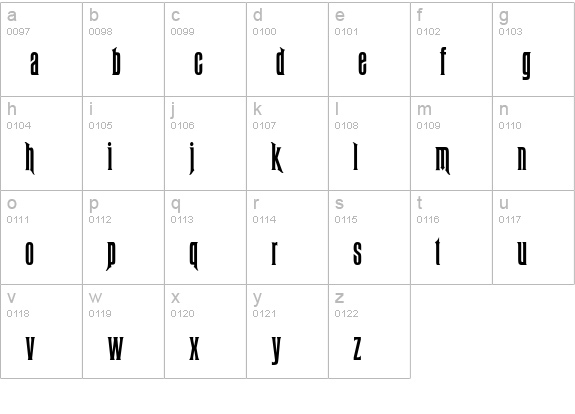
Disney Haunted Mansion 1 Regular Font Details
Disney Haunted Mansion 1 Regular is the standard, neutral variant in the Disney typeface family \xE2\x80\x94 well suited to general body text, paragraphs, and standard typographic work.
Step into the spooky world of Disney Haunted Mansion 1 Regular font, where every letter is imbued with a haunting elegance and ghostly charm. Perfect for adding a touch of whimsical fright to your designs, this font is a must-have for any Halloween project or themed event. With its ornate details and vintage feel, Disney Haunted Mansion 1 Regular font captures the essence of a classic haunted house adventure. Whether you're creating invitations, posters, or party decorations, this font will transport your audience to a realm of eerie enchantment. Best of all, Disney Haunted Mansion 1 Regular font is available for free download at FontsMarket.com. Embrace the spirit of the season and add a dash of spookiness to your next project with this bewitching typeface.